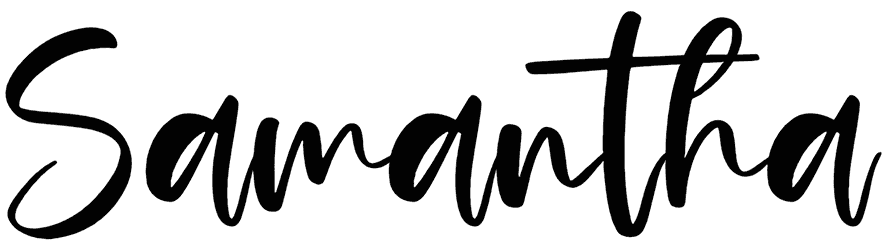
Samantha Font
Some fonts catch your eye at first glimpse, and Samantha is one of them. This cursive font has an elegant design that seems entertaining to the viewers. You may use the Samantha font for several cases, such as print on clothing, business cards, and postcards, as it is offered in two versions.
This handwritten font’s letters have a stunning style, creating a handsome personality. Besides, their smooth edges with a curvy shape send your audience a pleasant vibe.